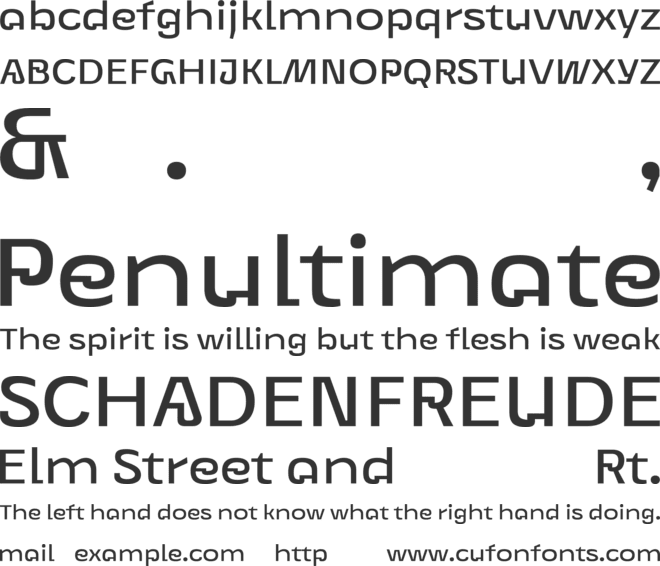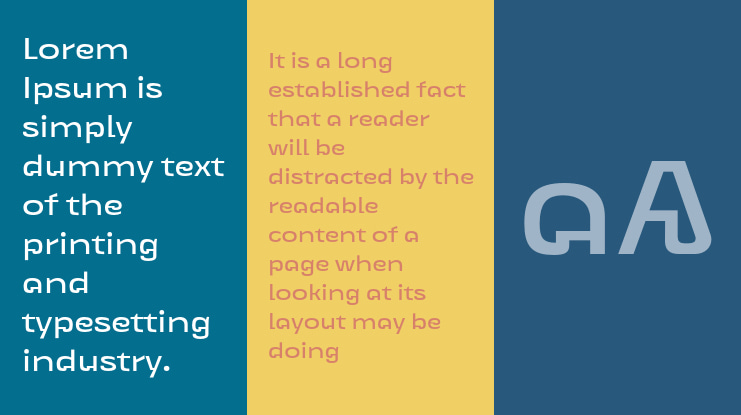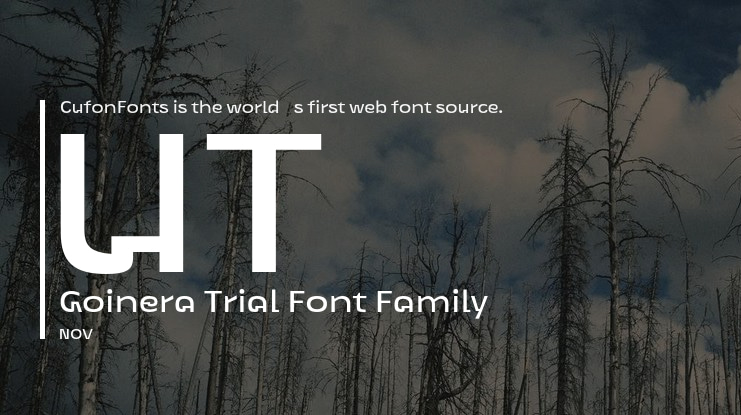
UT Goinera Trial Font
UT Goinera is a modern geometric typeface that finds its roots in the everyday, a coffee cup lid, to be exact. But don’t let the simplicity of the inspiration fool you. This font is all about clean structure with subtle quirks that bring warmth and personality to your work.
Designed with smooth curves, strong verticals, and distinctive joints, UT Goinera blends architectural precision with a soft, grounded tone. The result? A typeface that feels thoughtful, approachable, and effortlessly modern.
Whether you’re crafting a brand identity, building sleek UI layouts, or designing bold packaging, UT Goinera gives you a clean base with enough detail to stand out—without trying too hard.